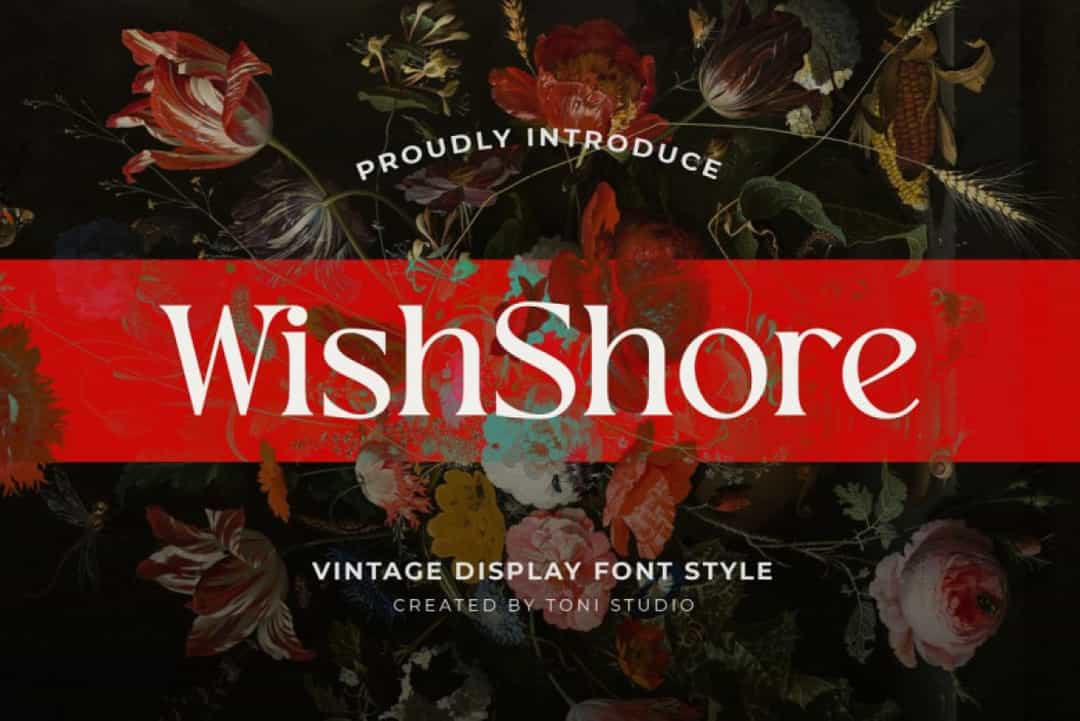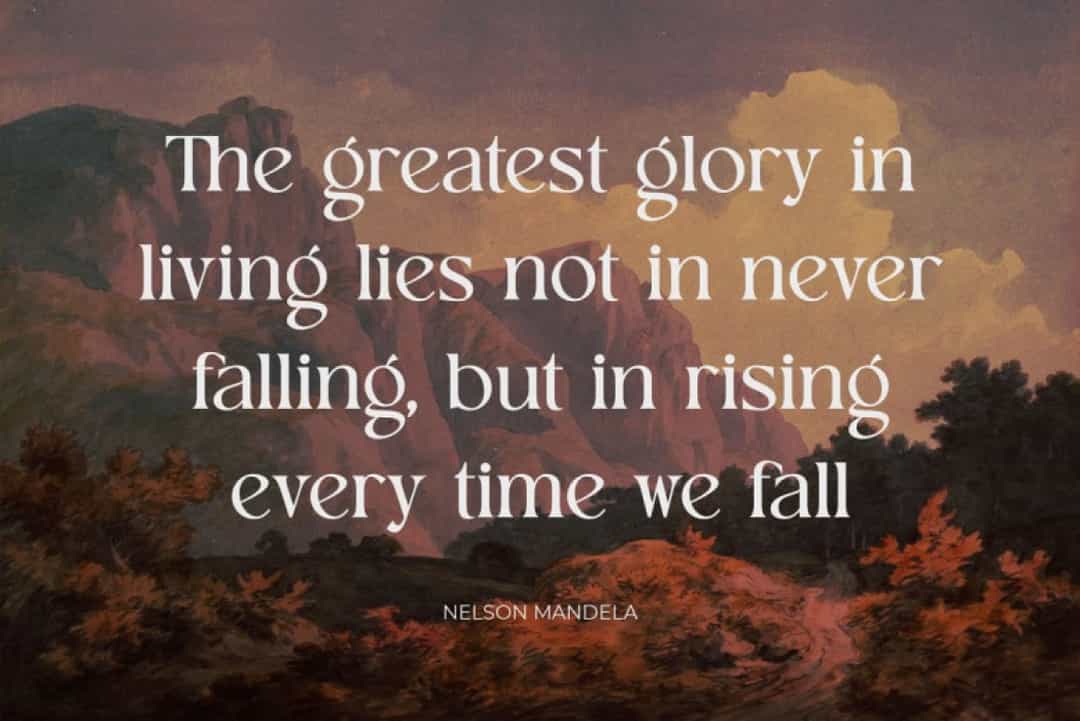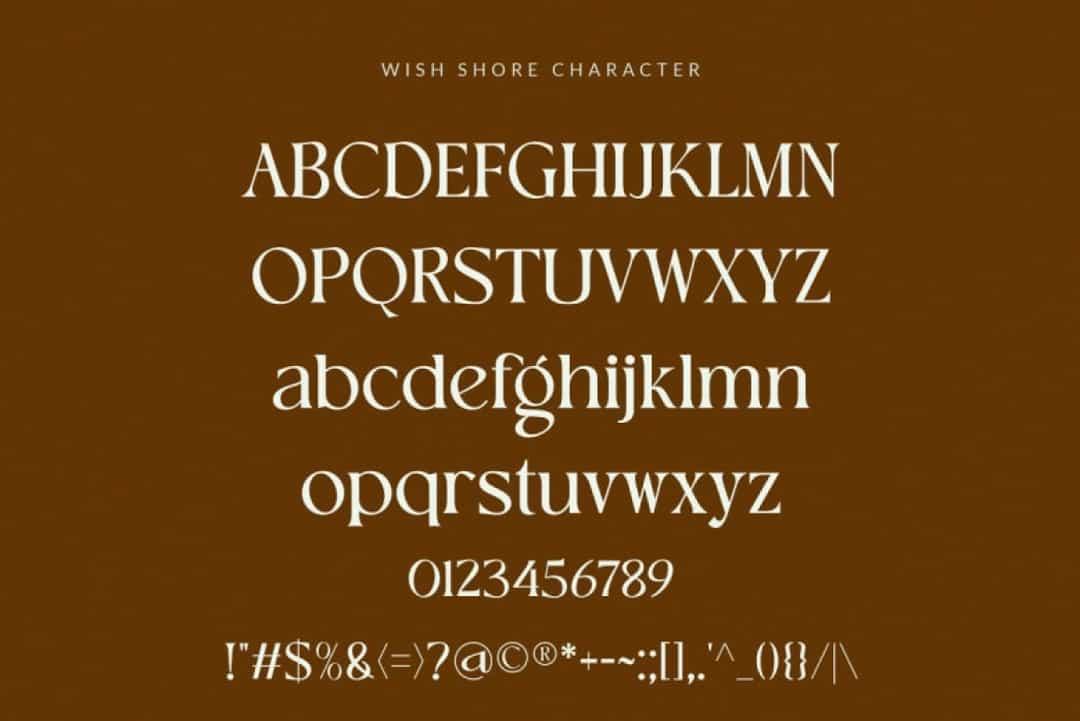
Wish Shore Serif Font is now available, offering exquisite details and stunning binding for adding sophistication and elegance to any project. Inspired by iconic minimalist logos, WishShore can help add sophistication and elegance to any work environment, be it brochures, videos or videosploitation; advertising campaigns; branding invitations; layout designs of exquisite crafts; packaging designs for beauty products or book cover design – among many other uses.